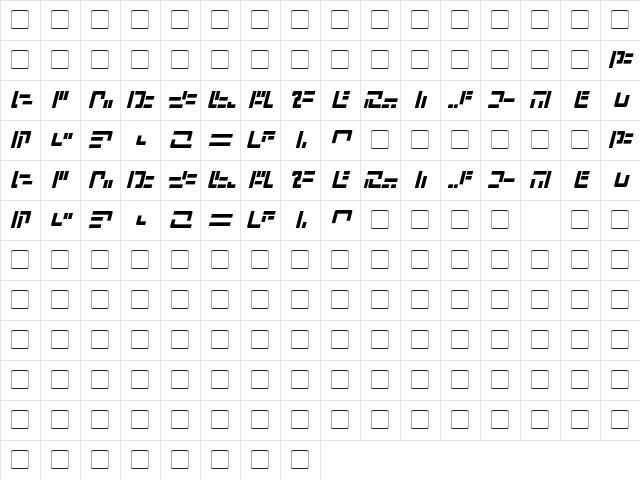
Modern Iaconic Italic
| Foundry | Neale Davidson |
| Designer | Neale Davidson |
Design Context for Modern Iaconic Typeface
Modern Iaconic is a composed and adaptable typeface that performs quietly and consistently across a wide range of design contexts. The dynamic lean of this cut emphasises speed and emphasis in any layout.
Pro Tip: Try Modern Iaconic for annotation and caption copy alongside an upright companion — the contrast in angle creates a dynamic but ordered typographic system.